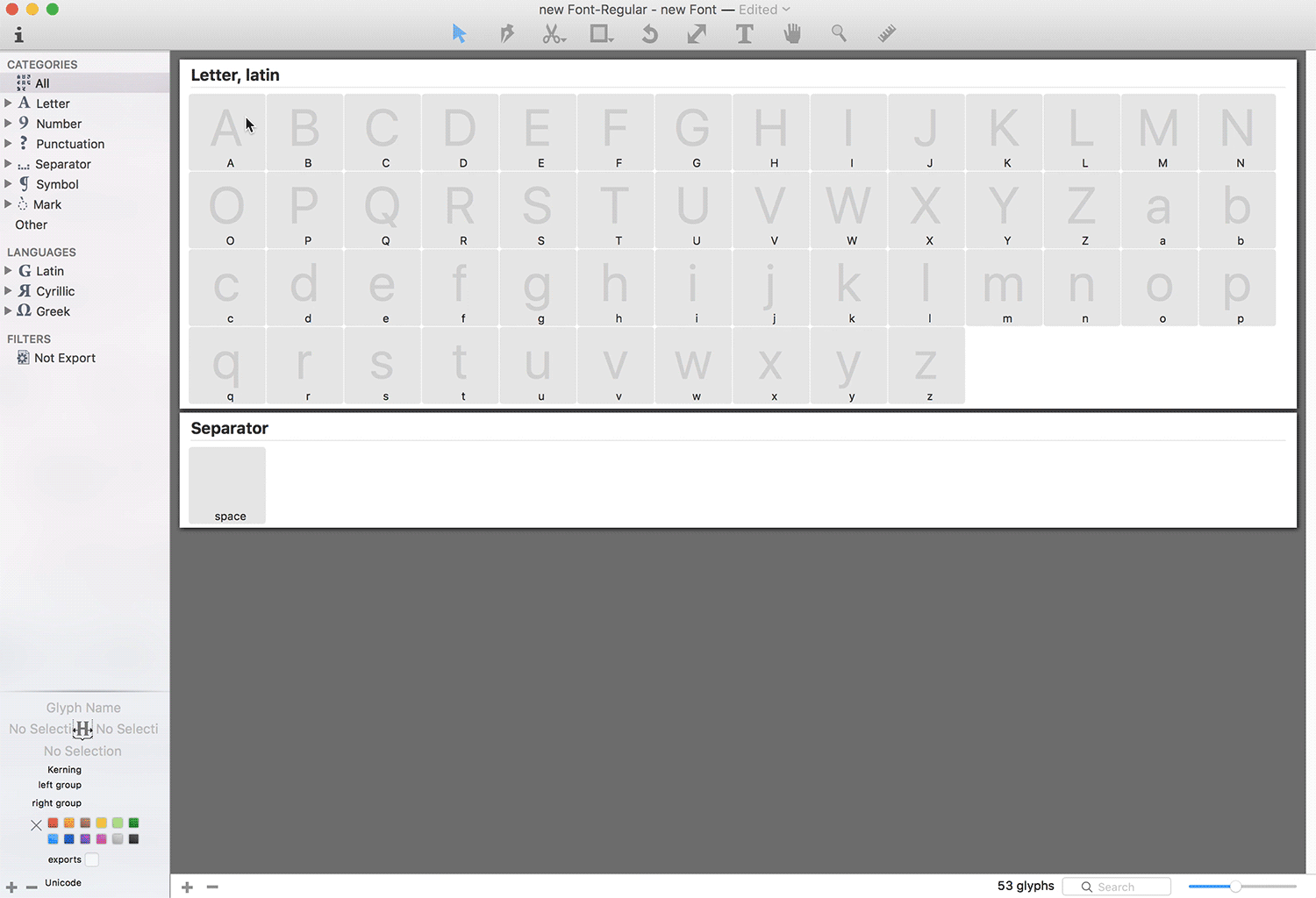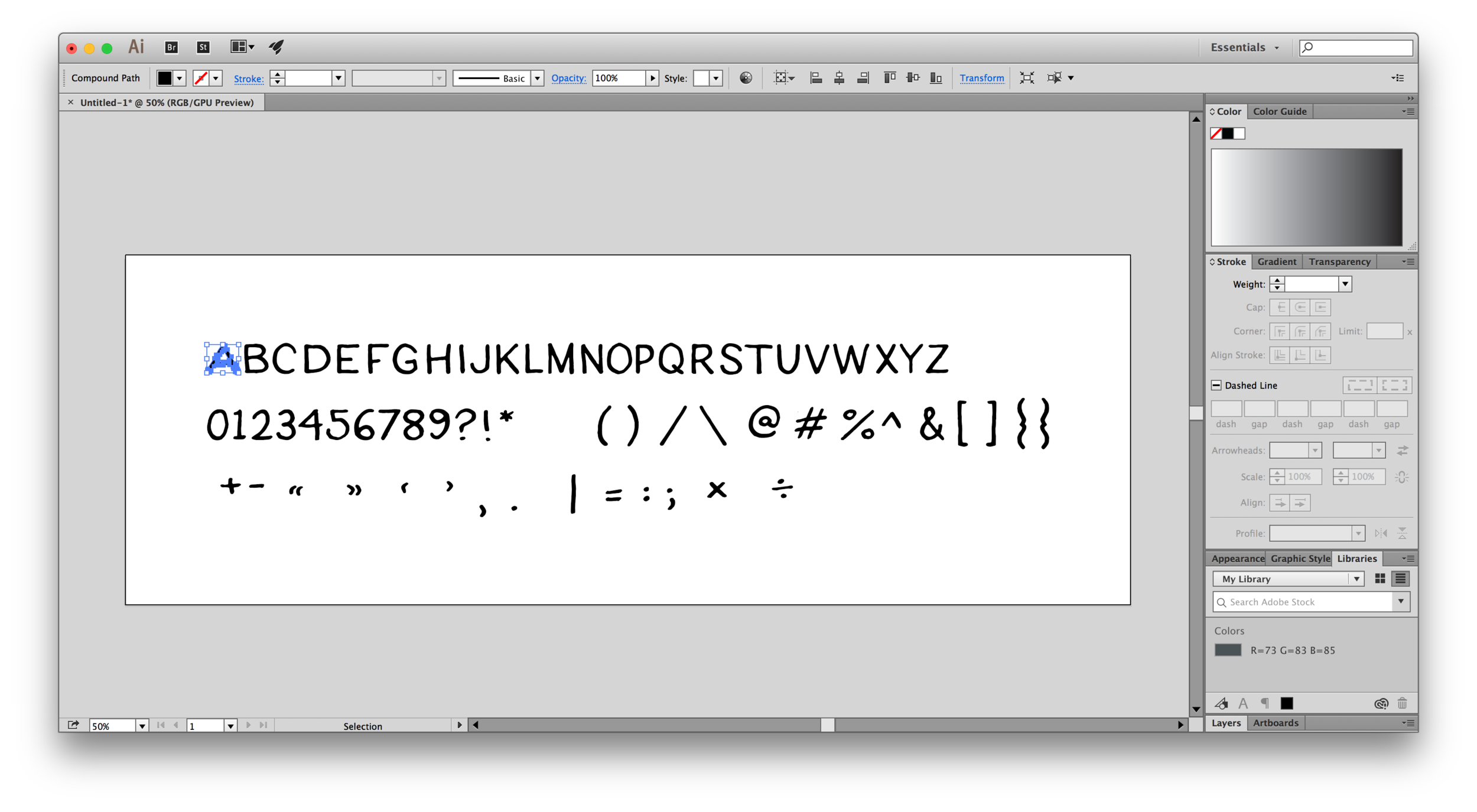
46+ Handwritten Font Tutorial Potoshop. Baffle is a youtube channel presented by james i'll show you how to make your own handwriting font, using calligraphr. In the age of social media and smartphones, probably, there are people, who. Learn to to find a default handwritten font and how to format it so it looks more like handwriting. In photoshop we transform and warp our text box to make it fit right on the page. Then we'll show you the fonts that will help sell it even more. How to learn modern calligraphy tutorial (for beginners) top 20 handwritten fonts handwriting fonts. Archive of freely downloadable fonts. This lends a fun, juvenile feel that would be perfect for any designs targeted at children (like invitations for a birthday party or a. If all you want is a font that looks like you've written text, these may do the job for you. All you need is a printer and a. Tech reviews, tutorials, gaming & more. Browse by alphabetical listing, by style, by author or by popularity. The handwritten font has slightly skewed letters that lean both right and left. In today's design tip of the day, we teach you how to create a handwritten font in 30 minutes or less. 1 2 3 4 5 6 7 8 9 10.
How to create your own handwritten font (in 30 minutes or less). So you end up with elearning courses that all use the same familiar fonts. Friends, i've been looking for a handwritten font with math support. Hare are some tutorials to get you started sending handwritten cards using our platform. Licensed for personal and commercial use. How to learn modern calligraphy tutorial (for beginners) top 20 handwritten fonts handwriting fonts. This lends a fun, juvenile feel that would be perfect for any designs targeted at children (like invitations for a birthday party or a.
The Basics Of Drawing Type Creating Your Own Handwritten Font. The handwritten font has slightly skewed letters that lean both right and left. Baffle is a youtube channel presented by james i'll show you how to make your own handwriting font, using calligraphr. Learn to to find a default handwritten font and how to format it so it looks more like handwriting. Archive of freely downloadable fonts. In photoshop we transform and warp our text box to make it fit right on the page. Browse by alphabetical listing, by style, by author or by popularity. If all you want is a font that looks like you've written text, these may do the job for you. Tech reviews, tutorials, gaming & more. 1 2 3 4 5 6 7 8 9 10. In the age of social media and smartphones, probably, there are people, who. Then we'll show you the fonts that will help sell it even more. All you need is a printer and a. In today's design tip of the day, we teach you how to create a handwritten font in 30 minutes or less. How to learn modern calligraphy tutorial (for beginners) top 20 handwritten fonts handwriting fonts. This lends a fun, juvenile feel that would be perfect for any designs targeted at children (like invitations for a birthday party or a.
Handwriting fonts are written with a pen, pencil, or marker.
The reason for this is because of the uniqueness and randomness handwritten fonts provide.
Handwritten fonts are nothing new, but they've gained popularity over the years.
The Basics Of Drawing Type Creating Your Own Handwritten Font. Then we'll show you the fonts that will help sell it even more. Tech reviews, tutorials, gaming & more. In the age of social media and smartphones, probably, there are people, who. This lends a fun, juvenile feel that would be perfect for any designs targeted at children (like invitations for a birthday party or a. Archive of freely downloadable fonts. Browse by alphabetical listing, by style, by author or by popularity. Learn to to find a default handwritten font and how to format it so it looks more like handwriting. In photoshop we transform and warp our text box to make it fit right on the page. All you need is a printer and a. 1 2 3 4 5 6 7 8 9 10. Baffle is a youtube channel presented by james i'll show you how to make your own handwriting font, using calligraphr. How to learn modern calligraphy tutorial (for beginners) top 20 handwritten fonts handwriting fonts. If all you want is a font that looks like you've written text, these may do the job for you. In today's design tip of the day, we teach you how to create a handwritten font in 30 minutes or less. The handwritten font has slightly skewed letters that lean both right and left.
The handwritten font has slightly skewed letters that lean both right and left.
How To Make Any Font A Handmade Font Creative Market Blog. If all you want is a font that looks like you've written text, these may do the job for you. In photoshop we transform and warp our text box to make it fit right on the page. Browse by alphabetical listing, by style, by author or by popularity. Then we'll show you the fonts that will help sell it even more. Learn to to find a default handwritten font and how to format it so it looks more like handwriting. Baffle is a youtube channel presented by james i'll show you how to make your own handwriting font, using calligraphr. In the age of social media and smartphones, probably, there are people, who. Archive of freely downloadable fonts. This lends a fun, juvenile feel that would be perfect for any designs targeted at children (like invitations for a birthday party or a. In today's design tip of the day, we teach you how to create a handwritten font in 30 minutes or less. All you need is a printer and a. How to learn modern calligraphy tutorial (for beginners) top 20 handwritten fonts handwriting fonts. Tech reviews, tutorials, gaming & more. 1 2 3 4 5 6 7 8 9 10. The handwritten font has slightly skewed letters that lean both right and left.
Our handwritten fonts are an opportunity to address personal and loving issues. In addition, hand lettering and calligraphy across social media platforms such as instagram and. Handwriting fonts are written with a pen, pencil, or marker. See more ideas about handwriting fonts, lettering alphabet. Stay in touch for more new beautiful… An implementation of htr using tensorflow 2.x. Licensed for personal and commercial use. From logos to social media graphics to posters, they can bring your designs to life in a fun, unique way. Baffle is a youtube channel presented by james i'll show you how to make your own handwriting font, using calligraphr. Tech reviews, tutorials, gaming & more.